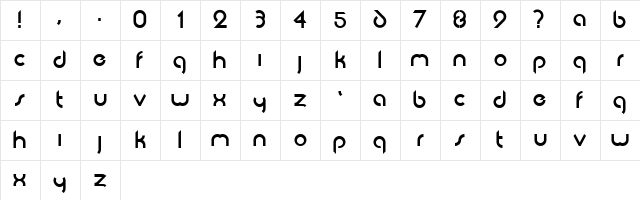
Foundry: Jacob King
Design Context for Abode
Abode is a composed and adaptable typeface that performs quietly and consistently across a wide range of design contexts.
Pro Tip: Use Abode in both headline and body roles to test its range before committing to a single application.